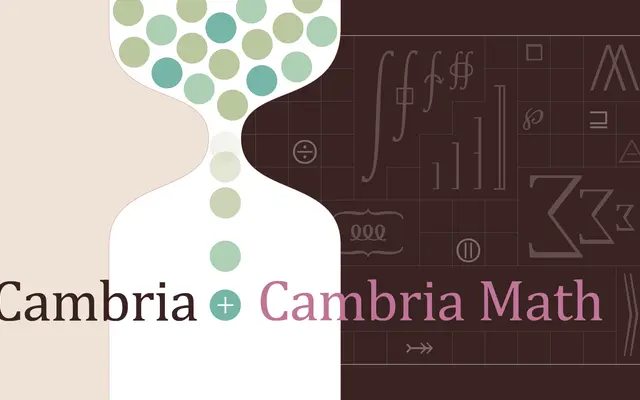
Cambria
Tiro Typeworks · Jelle Bosma, Ross Mills, John Hudson, Steve Matteson, Robin Nicholas, Ruben Tarumian, David Březina
A transitional text serif originally commissioned by Microsoft, covering Latin, Cyrillic, Greek and Armenian alongside a dedicated mathematical variant.
Designed principally by Jelle Bosma with contributions from a broad team including John Hudson for language extensions, Steve Matteson and Robin Nicholas for Cyrillic and Greek, and Ruben Tarumian for Armenian script. The family comprises four RIBBI styles plus a separate Cambria Math font developed by Ross Mills, making it one of the few text serifs with dedicated mathematical typesetting support. Widely deployed through Microsoft products, it has become a reliable workhorse for documents requiring multilingual or scientific composition.
Cambria is a text serif designed for on-screen legibility with features characteristic of transitional serifs: moderate contrast, sturdy strokes, and clear letterforms suited to continuous reading at small sizes.